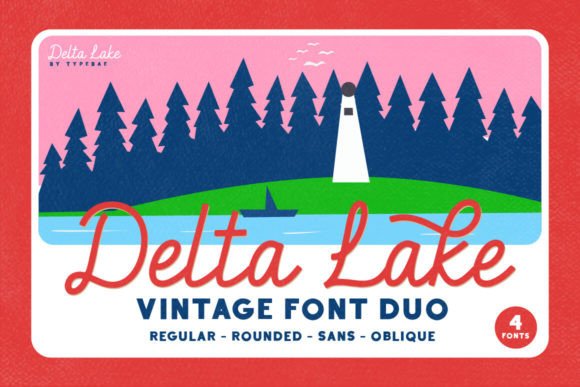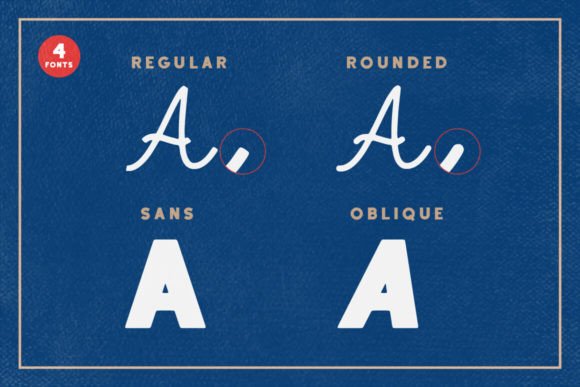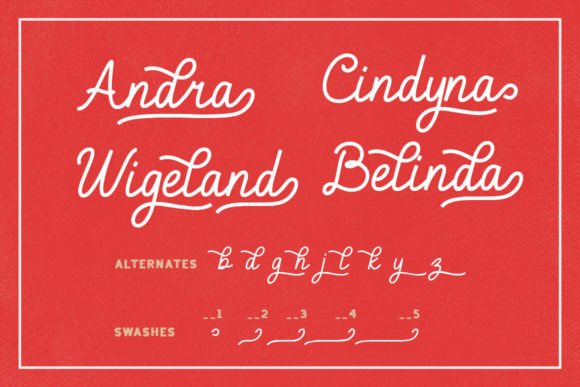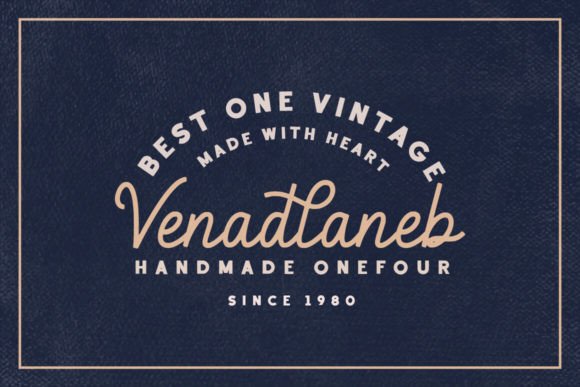
Delta Lake Font Font
About the Delta Lake Font Font
Crafted with precision, the Delta Lake Font Font is ready to bring your ideas to life. Delta Lake is a beautiful handwritten brush script font that features elegant tails at the beginning and end of each letter. It offers ligatures, enabling certain letter combinations to flow seamlessly for a more natural and authentic appearance.
Delta Lake Font excels in applications requiring a touch of elegant flair, such as wedding invitations, logos for boutique brands, or short-form marketing materials. Its fluid nature makes it ideal for headlines, short quotes, and packaging designs where a handcrafted feel is desired. However, it’s less suitable for body text or UI elements due to its low readability in extended passages.
To complement its graceful script style, consider pairing Delta Lake with a clean sans-serif like Montserrat for a modern contrast, or a classic serif such as Garamond for a more traditional feel. A geometric sans-serif, such as Futura, could also provide a striking juxtaposition, offering a sophisticated balance to the hand-drawn quality of Delta Lake.
The overall personality of Delta Lake is sophisticated yet approachable; elegant but not overly formal. Its inherent charm makes it perfect for brands aiming for a sense of refined artistry or handcrafted authenticity.